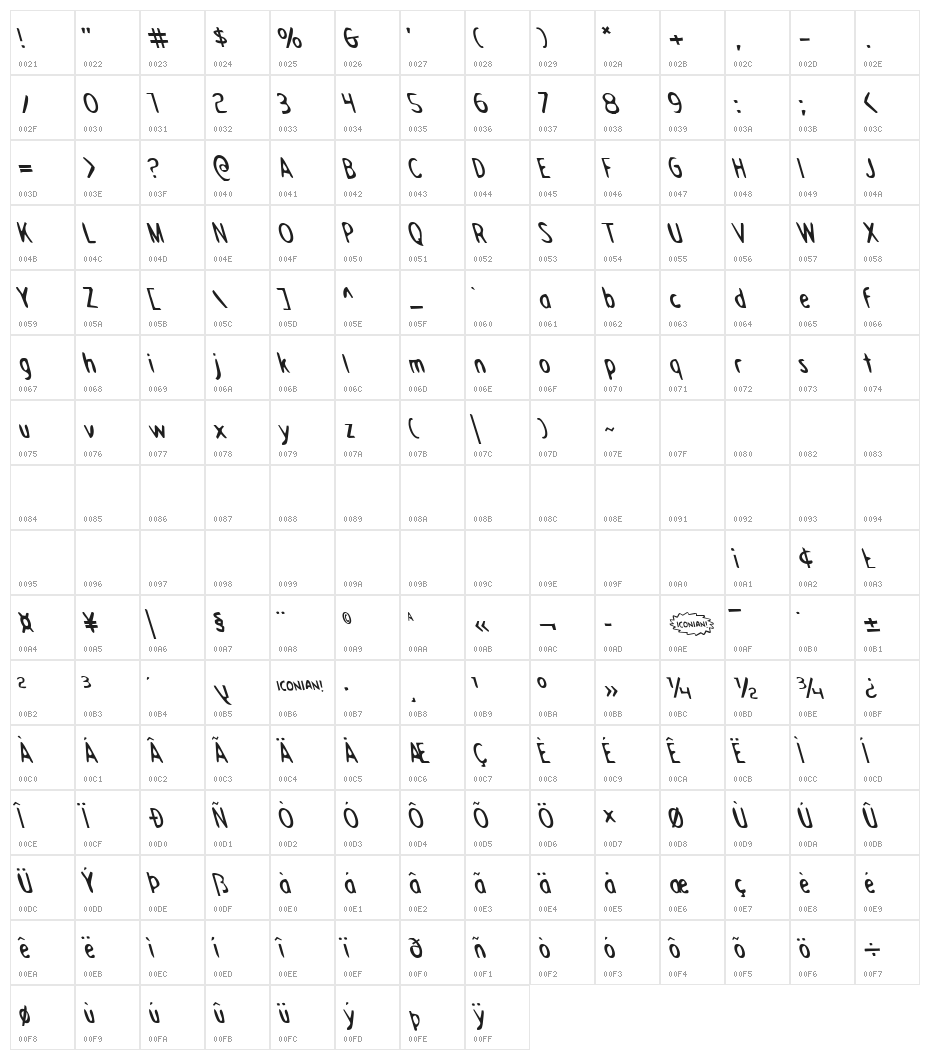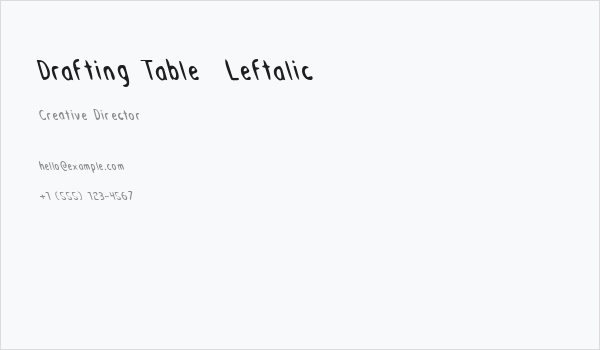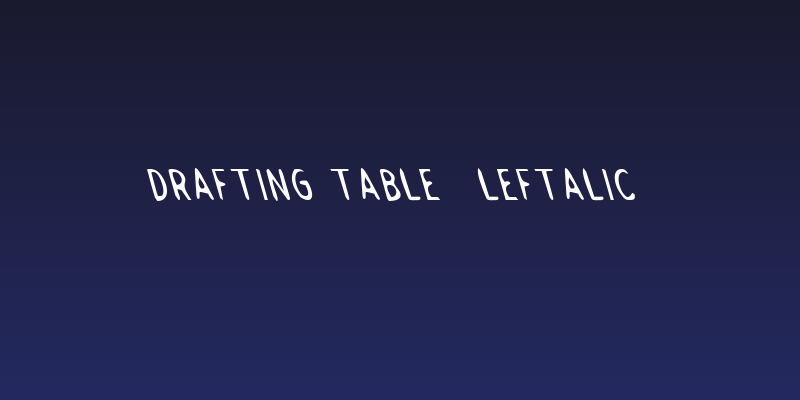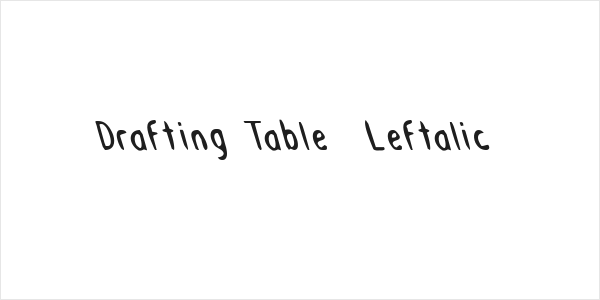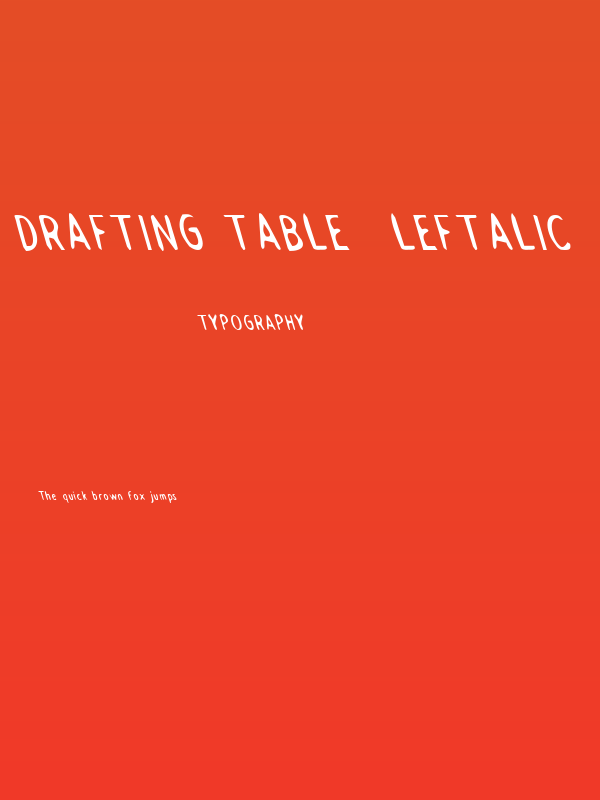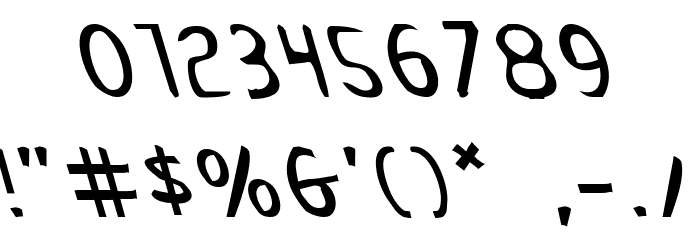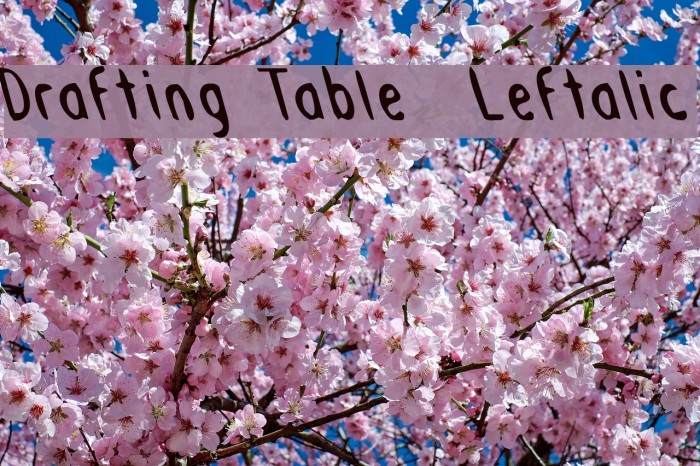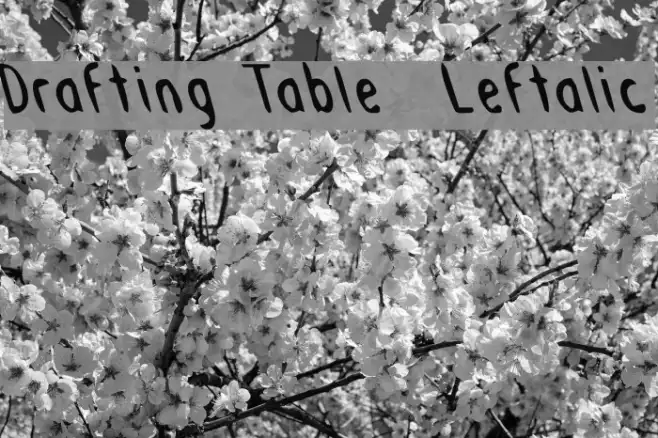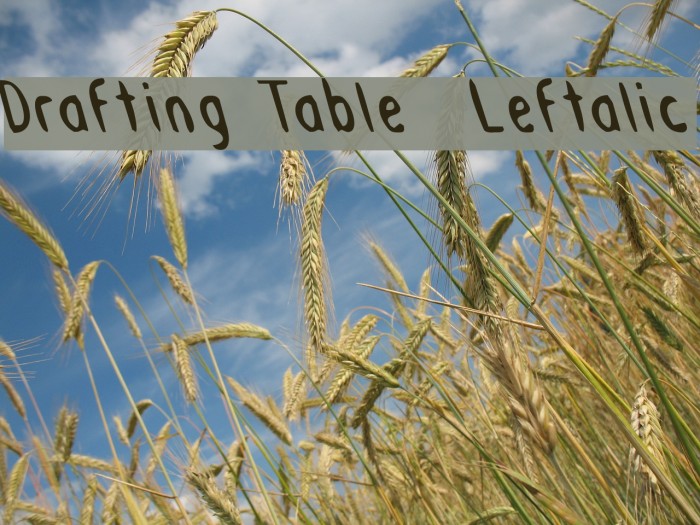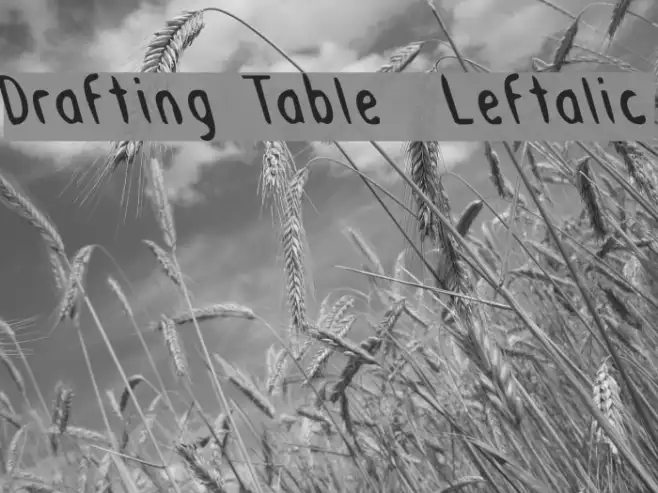
Drafting Table Leftalic Font
Drafting Table Leftalic Description
This font features a playful and informal style with a handwritten appearance. The letters are slightly slanted, giving it a dynamic and casual look. The strokes are uneven, adding to its organic feel, while maintaining legibility. The uppercase and lowercase letters are distinct, with a quirky charm that makes it stand out. The numbers and special characters follow the same whimsical style, making it suitable for creative projects. Its unique character is ideal for designs that require a personal touch.
| Proposed Projects | Ideal for greeting cards, children's books, casual branding, and creative posters. |